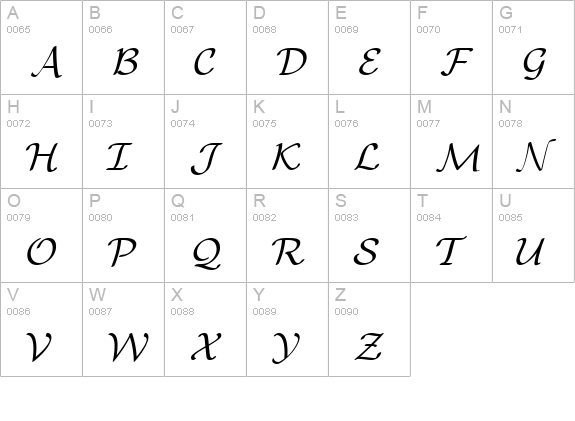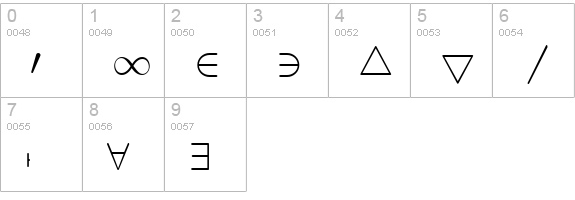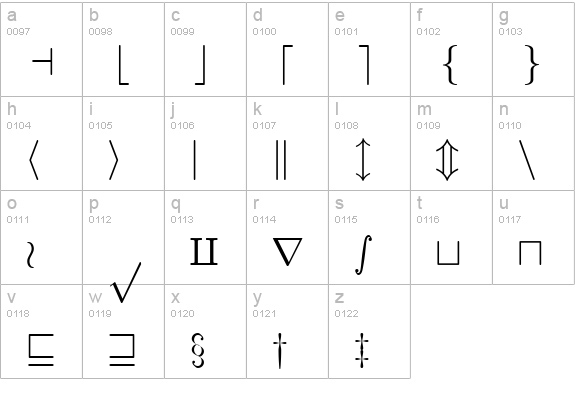
TeXplus SY is a stunning and versatile font that combines elegance with readability, making it perfect for a wide range of creative projects. Its sleek and modern design is bound to capture attention and leave a lasting impression. With its wide range of characters and accents, TeXplus SY offers endless possibilities for typography enthusiasts and professionals alike. One of the greatest advantages of TeXplus SY is that it is available for free. Yes, you read that right! This remarkable font can be downloaded at absolutely no cost from FontsMarket.com. This means that you can enhance your designs without having to worry about breaking the bank. Whether you are a student, a graphic designer, or a small business owner, TeXplus SY is the ideal choice for all your typographic needs. The versatility of TeXplus SY is truly remarkable. From logo designs to website headers, from print materials to social media graphics, this font can effortlessly elevate any project. Its clean lines and balanced proportions make it easy to read in both large and small sizes, ensuring that your message is effectively communicated to your audience. Furthermore, TeXplus SY is compatible with a wide range of software and platforms, making it convenient to use across different devices and applications. Whether you use it in Adobe Creative Suite, Microsoft Office, or any other design software, you can be confident that TeXplus SY will deliver outstanding results. So why wait? Download TeXplus SY today and unleash your creativity like never before. Let this font become your go-to choice for all your design projects. With its outstanding quality and its availability at no cost, TeXplus SY is a true gem in the world of typography. Don't miss out on this incredible opportunity to enhance your designs and captivate your audience. Visit FontsMarket.com now and experience the power of TeXplus SY.